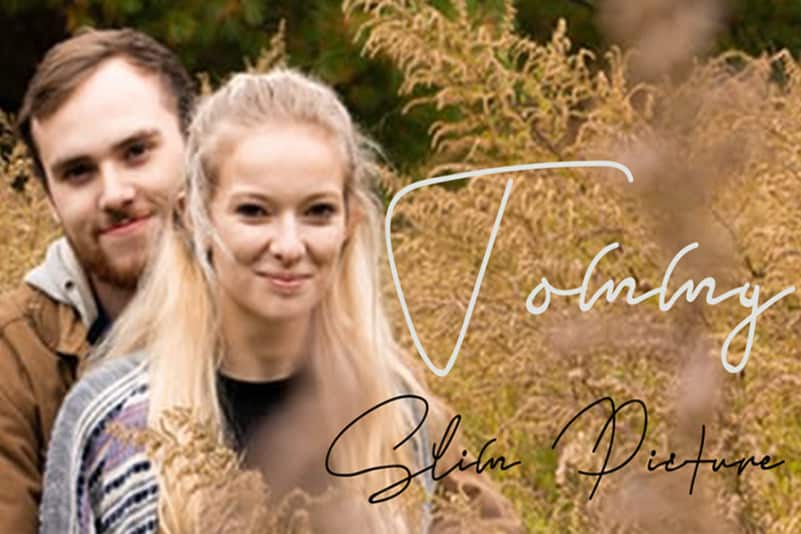
Slim Simple Script Font is a great handwritten font. It maintains its classy calligraphic influences while feeling contemporary and fresh. This versatility will appeal to a wide range of crafty ideas, from letterheads and titles to stationery.